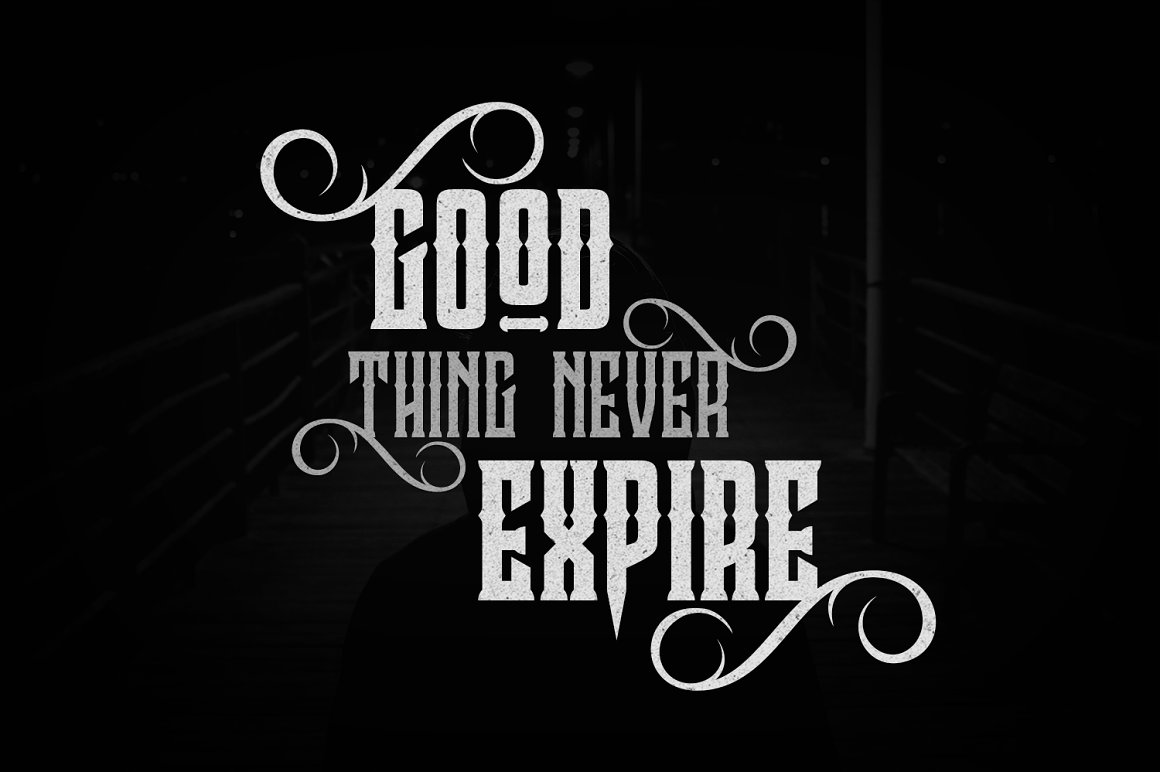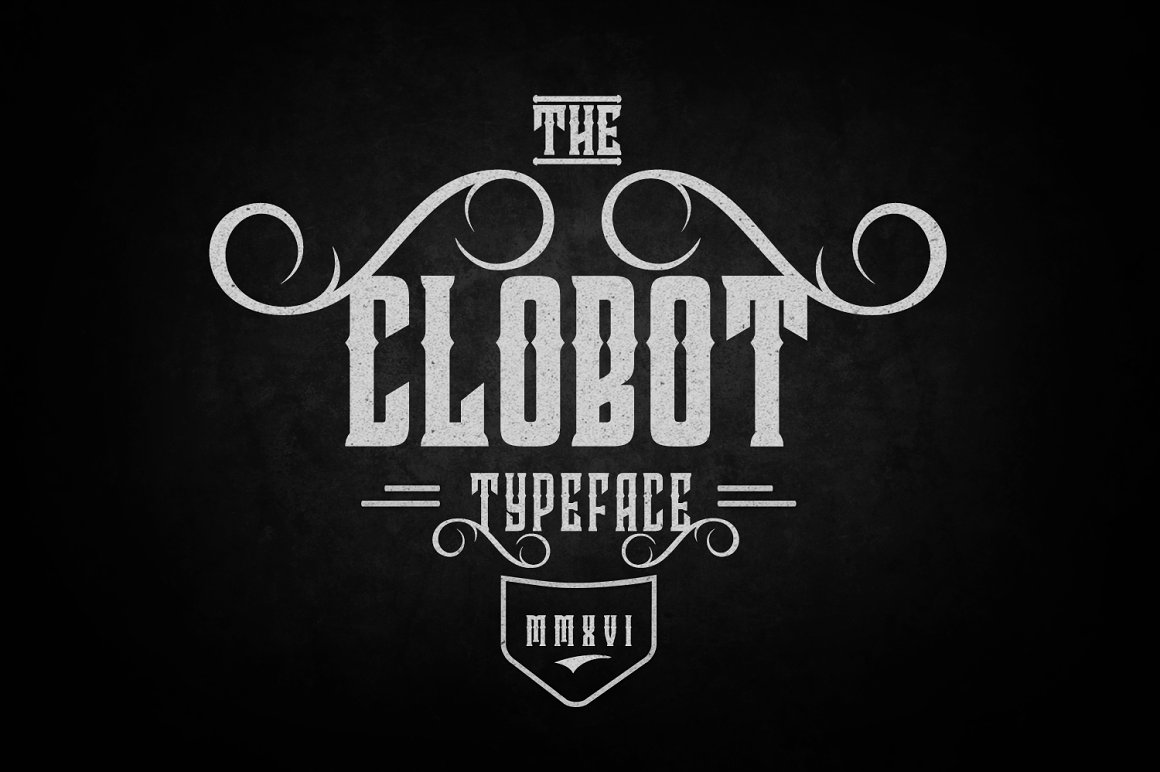
Clobot Typeface
Clobot is a tough and strong decorative display typeface. It has many alternative and ligature glyphs which make it very versatile font and it has multi-lingual also. It provides flexibility to enhance your designs.
| Classification: | Blackletter / Gothic Fonts, Display Fonts |